Capucine In Use: Freshly Delivered
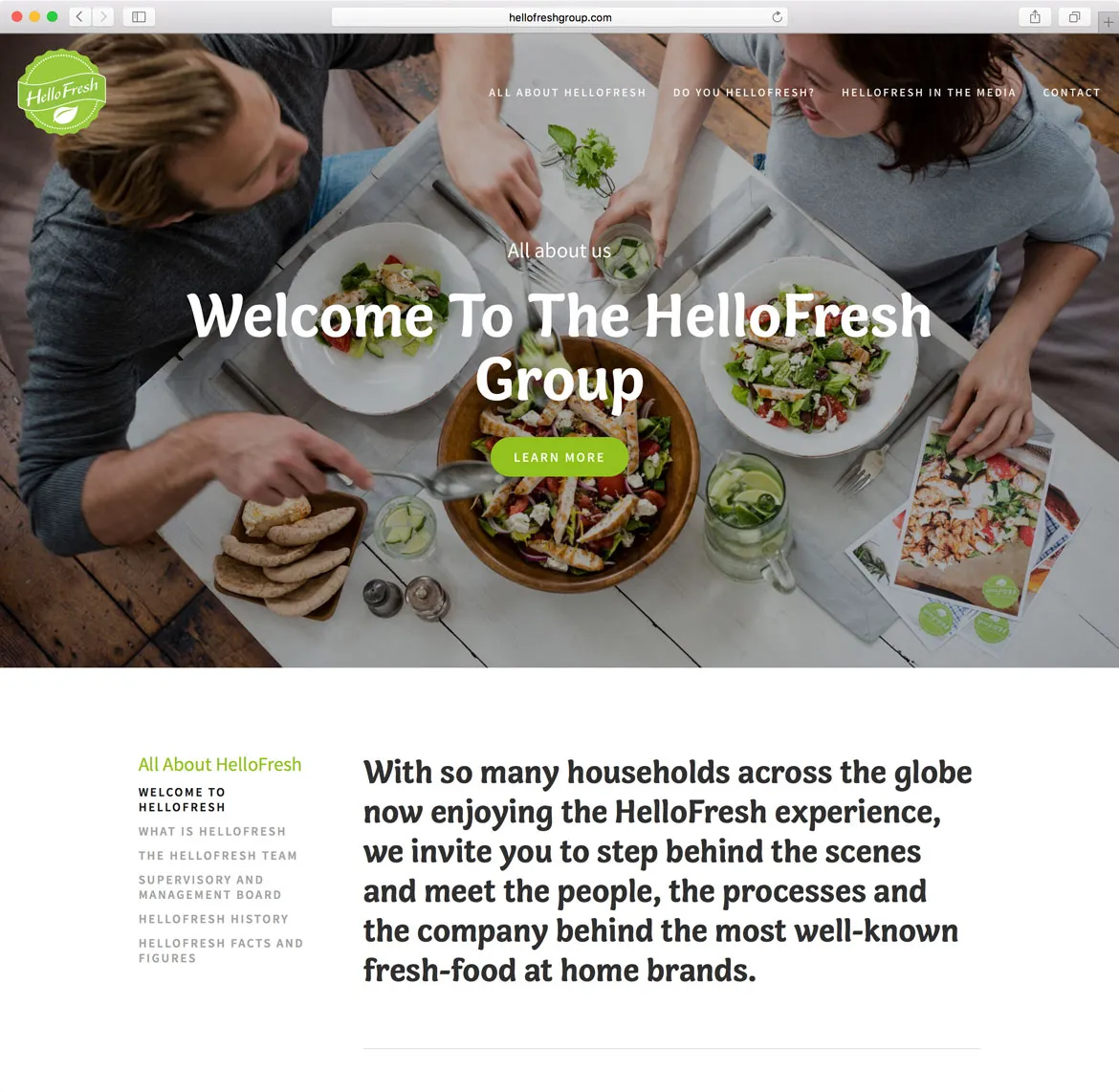
HelloFresh is a delivery service that saves you time on shopping and meal planning – you pick recipes and they send a box full of pre-measured ingredients that you cook at home. It’s one of many such services popping up left and right. In this growing market, where websites replace store aisles, each brand’s take on photography, colors, and type will be key to luring in cooks.
The approach of HelloFresh is a bright orange and green color palette combined with Alice Savoie’s Capucine. Her typeface is used primarily for headings and its rich flavor is balanced by a generous amount of white space. Capucine’s distinct italics are also put to good use, adding a layer of hierarchy and a subtle sense of movement to the page.
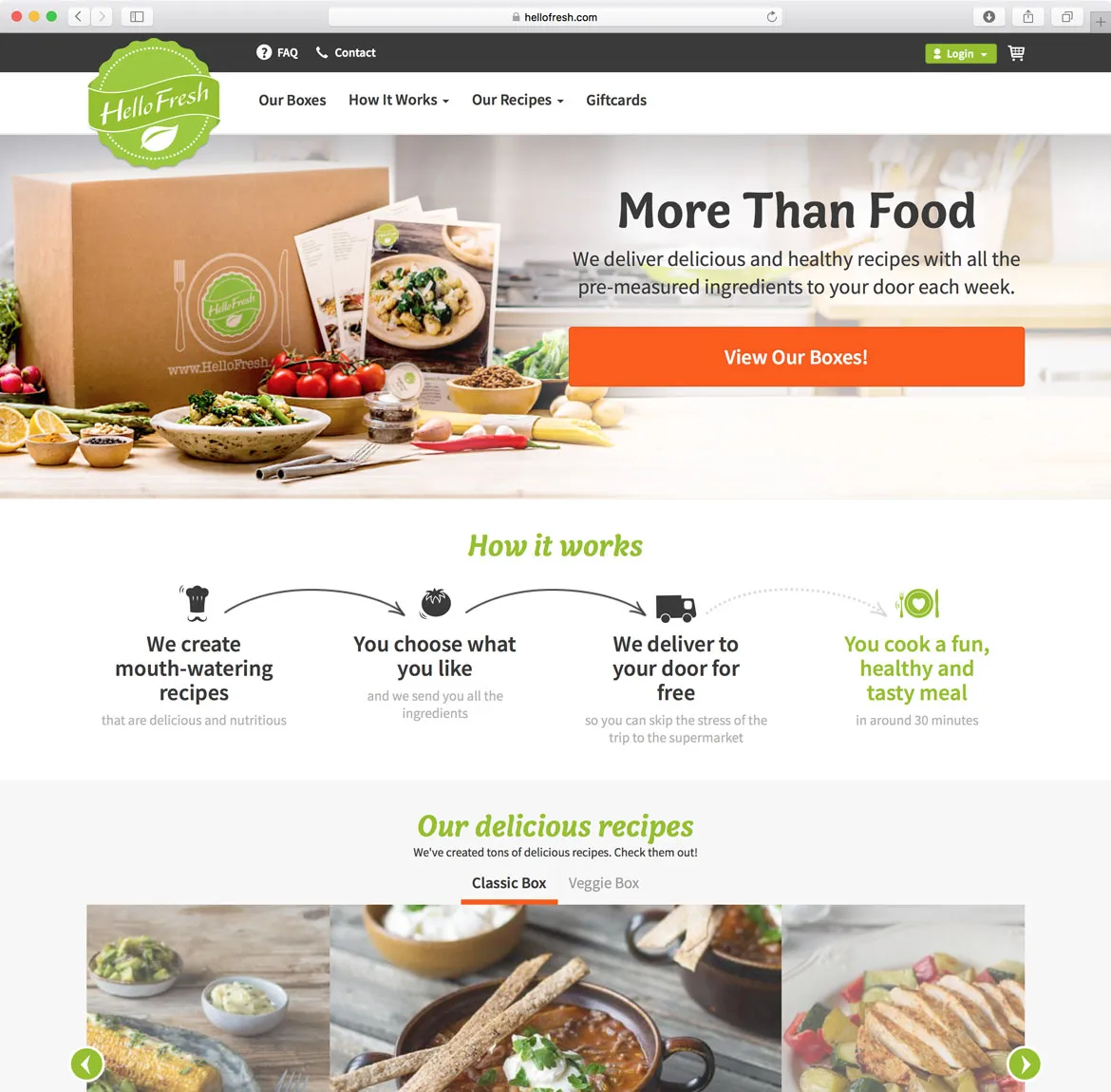
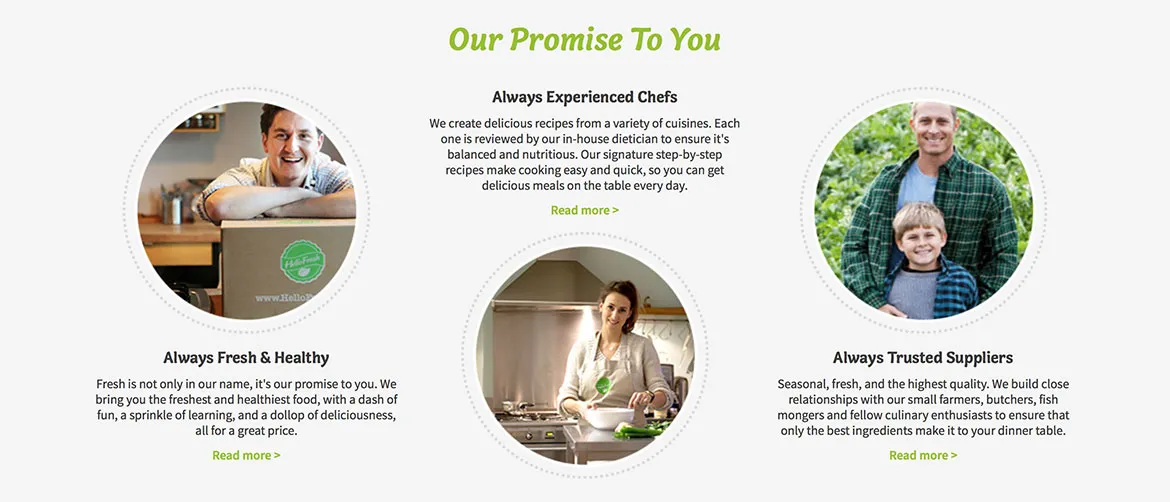
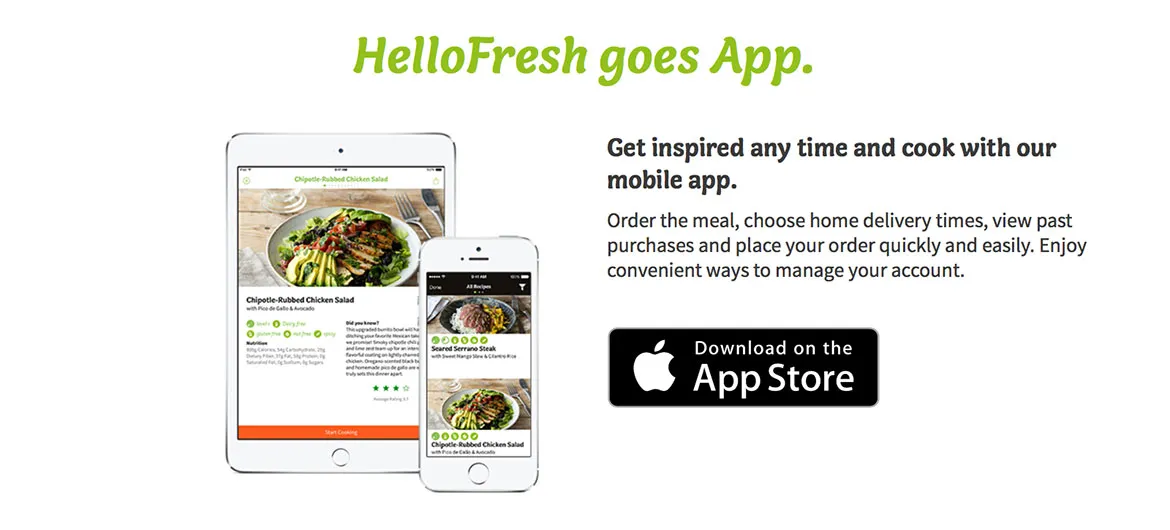
The design carries over to their iOS app, where you can see recipes and rate meals. Paired with Adobe’s Source Sans, Capucine is used more extensively and at a wider range of sizes. The typefaces complement each other, creating a bright vibe and easy-to-follow instructions. Overall, the use of Capucine lends warmth to an experience that could easily feel cold.